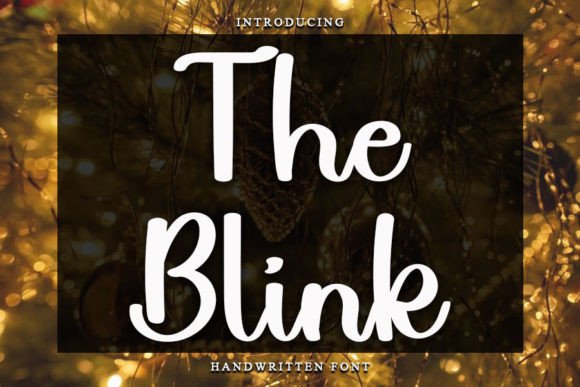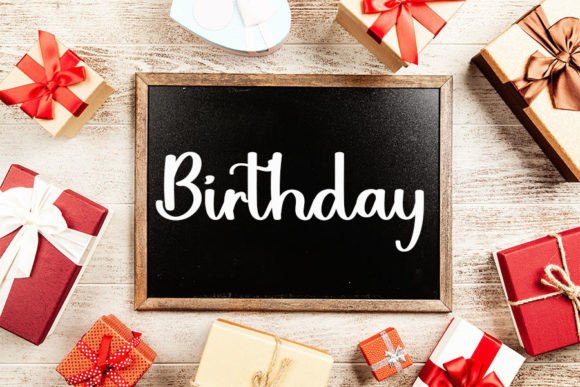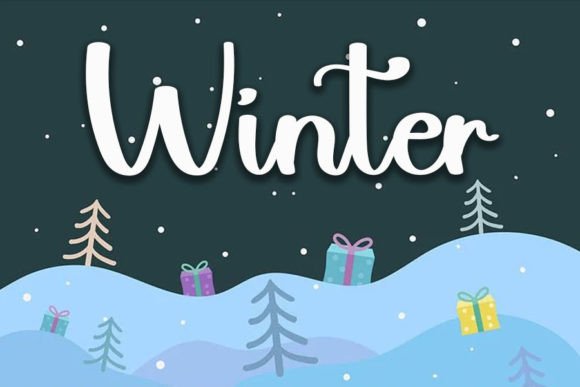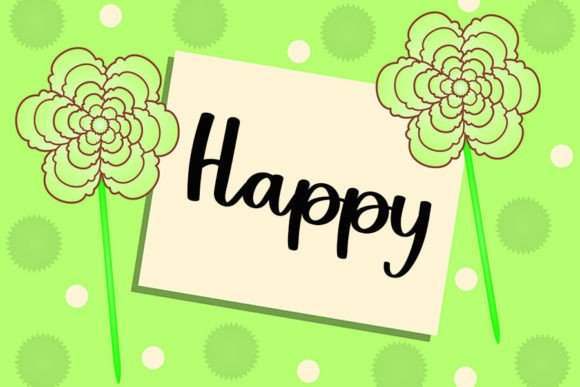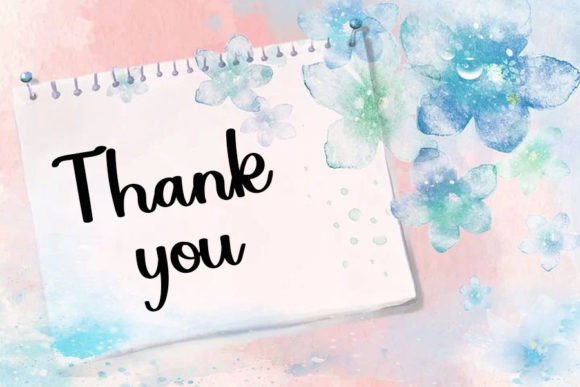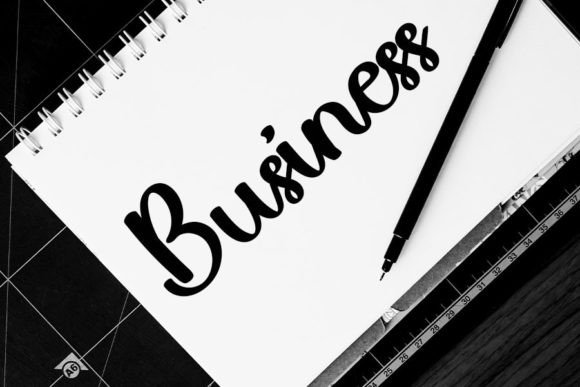
The Blink Font
About The Blink Font
The Blink is a magical handwritten font that brings a clean, modern, and slightly quirky touch to your design projects. With its soft curves and elegant lines, this font feels inviting and warm while maintaining a polished look. Whether you’re designing a professional logo or crafting a fun DIY project, The Blink will add personality and style to your work.
A Balance of Clean and Quirky
One of the most remarkable things about The Blink is how it strikes the perfect balance between clean elegance and playful charm. Each character is thoughtfully crafted to flow smoothly, giving your text a natural handwritten feel. The subtle quirks in the letterforms keep it from feeling too rigid or formal.
When you want your design to look friendly yet sophisticated, The Blink is an ideal choice. It’s a font that feels genuine and expressive without losing clarity.
Versatile for Many Uses
The Blink works beautifully across many types of projects. Here are some of the best ways to use it:
• Logos: Give your brand a unique and approachable style.
• Branding Materials: Use it on business cards, packaging, and signage to create a cohesive look.
• Social Media Graphics: Make posts, quotes, and promotions stand out.
• Invitations: Perfect for weddings, birthdays, and other celebrations.
• Greeting Cards: Add a heartfelt touch to personal messages.
• Crafty DIY Projects: Great for stickers, t-shirts, mugs, and more.
Whether your project is professional or personal, The Blink adapts effortlessly.
Design Tips to Make It Shine
Here are a few tips for working with The Blink:
• Pair with Sans Serif Fonts: Use clean sans serifs for headings or supporting text to balance the handwritten look.
• Try Soft Colors: Pastel and neutral palettes enhance the font’s elegant style.
• Play with Spacing: Adjust letter spacing to create a lighter or more compact feel.
• Mix Sizes: Combine large headlines with small subtext to create contrast.
• Add Simple Illustrations: Minimal icons or graphics work beautifully alongside The Blink.
Why You’ll Love The Blink
Designers love The Blink because it’s versatile, stylish, and easy to work with. It brings an authentic, handcrafted feel to any project without sacrificing readability. From brand identities to personal gifts, The Blink has a timeless quality that makes designs feel special.
Every time you use this font, it will feel like a fresh, creative experience. Its natural flow and elegant details ensure your work stands out.